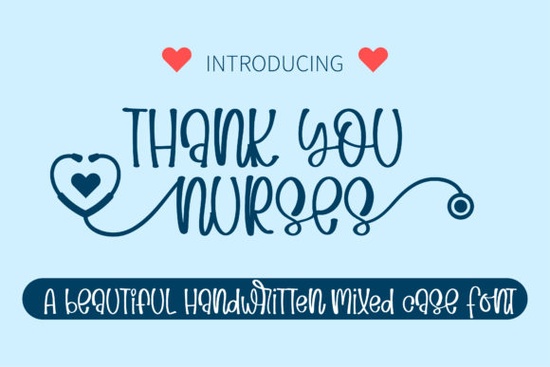
If you’ve been searching for a handwritten font that feels personal, warm, and just right for heartfelt projects, the Thank You Nurses font might be exactly what you need. It’s not flashy or overly stylized just sweet, clean, and beautifully crafted to bring sincerity to your designs. Whether you’re making cards for healthcare workers, crafting prints for hospital staff appreciation week, or designing merch with a gentle touch, this font adds personality without overwhelming your layout.
What kinds of projects work best with this font?
This font shines in situations where tone matters think gratitude, care, comfort, or quiet celebration. Here are a few ideas to get you started:
- Appreciation cards for nurses, aides, or medical staff pair it with soft watercolor backgrounds or minimal line art.
- Printable wall art for clinics, waiting rooms, or home offices try phrases like “Thank You for Caring” or “Heroes Wear Scrubs.”
- T-shirts, mugs, or tote bags sold on Etsy or Printful combine it with simple icons like hearts, stethoscopes, or hands holding flowers.
- Social media graphics for small businesses or nonprofits supporting frontline workers use it in quotes or thank-you messages.
It also layers well with other script fonts if you want to add contrast. For example, pairing it with something bolder like Crowd Heart Script can give your design more visual rhythm. Or if you’re going for a relaxed, artsy vibe, try mixing it with Boho Style Font for headings while keeping body text in Thank You Nurses.
Is this font easy to use for beginners?
Absolutely. The letterforms are clear and consistent, so even if you’re new to design software like Canva, Silhouette Studio, or Adobe Illustrator, you won’t struggle to make it look good. There’s no complicated ligature system or alternate glyphs to manage just install it, type, and go. That simplicity makes it great for quick-turnaround projects or last-minute gifts.
If you’re used to working with fonts like Make a Note or Kids Sketch Hand, you’ll find Thank You Nurses similarly intuitive. It doesn’t demand advanced typography skills, but still delivers charm and character.
How does it compare to other handwritten fonts?
Unlike ultra-casual scrawls or tightly controlled calligraphy, Thank You Nurses strikes a balance. It’s legible at small sizes but still feels human and expressive. Compare it to something like Hangberd America Duo, which leans into vintage Americana Thank You Nurses is softer, more modern, and emotionally neutral enough to suit many contexts beyond just healthcare.
You could easily use it for:
- Baby shower invites
- Teacher thank-you notes
- Pet memorial keepsakes
- Wedding welcome signs (for a cozy, intimate feel)
The key is matching the mood of your message. This font whispers rather than shouts perfect when you want warmth without drama.
Any tips for getting the most out of this font?
Here’s how to make your designs stand out without overcomplicating things:
- Leave breathing room. Because it’s handwritten, tight spacing can make words feel cluttered. Add a little extra letter-spacing for clarity.
- Stick to short phrases. It works best as a headline or accent font not for long paragraphs.
- Pair with sans-serif fonts. Try combining it with clean fonts like Montserrat or Lato for contrast and readability.
- Use color thoughtfully. Soft pastels, muted earth tones, or classic black-on-white all complement its gentle style.
Where else can I find fonts like this?
If you love the vibe of Thank You Nurses but want to explore similar styles, browse these collections naturally suited to crafters and small creators:
- Crowd Heart Script energetic and full of movement, great for bold statements.
- Make a Note casual and notebook-like, ideal for journaling or planner designs.